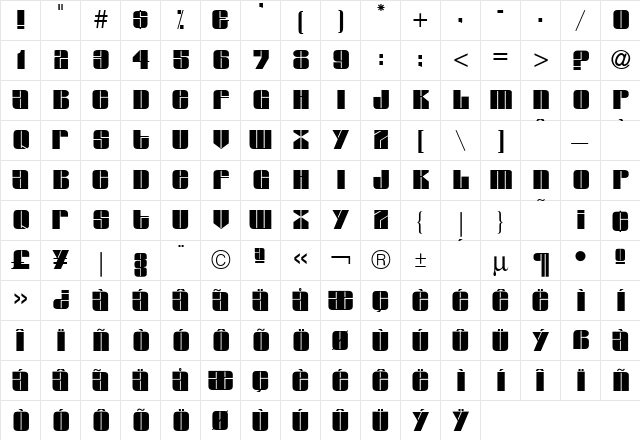
Glacier Regular
Design Context for Glacier Typeface
Glacier is a composed and adaptable typeface that performs quietly and consistently across a wide range of design contexts.